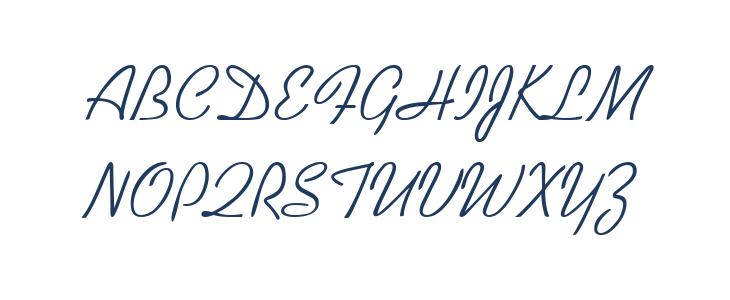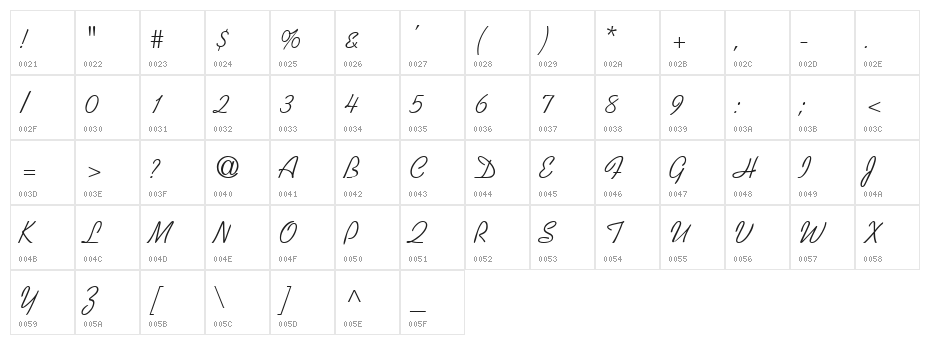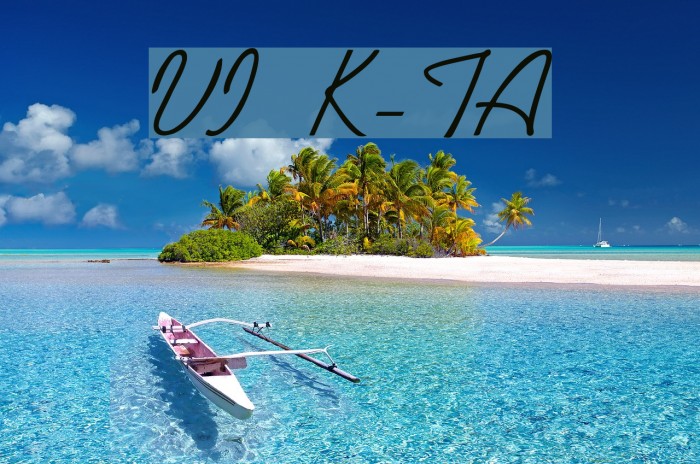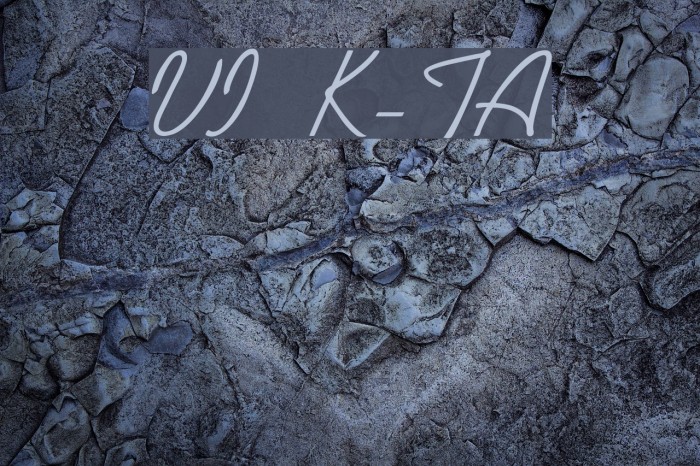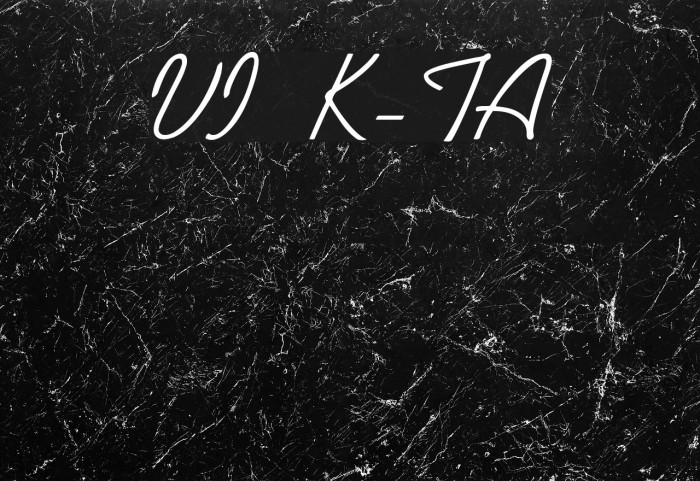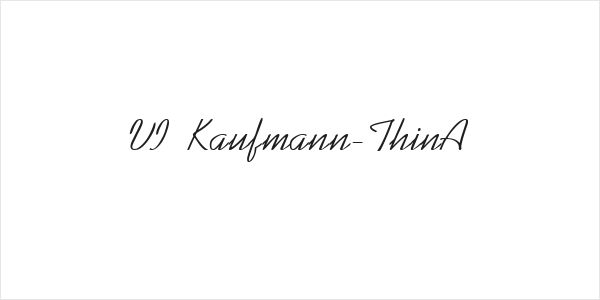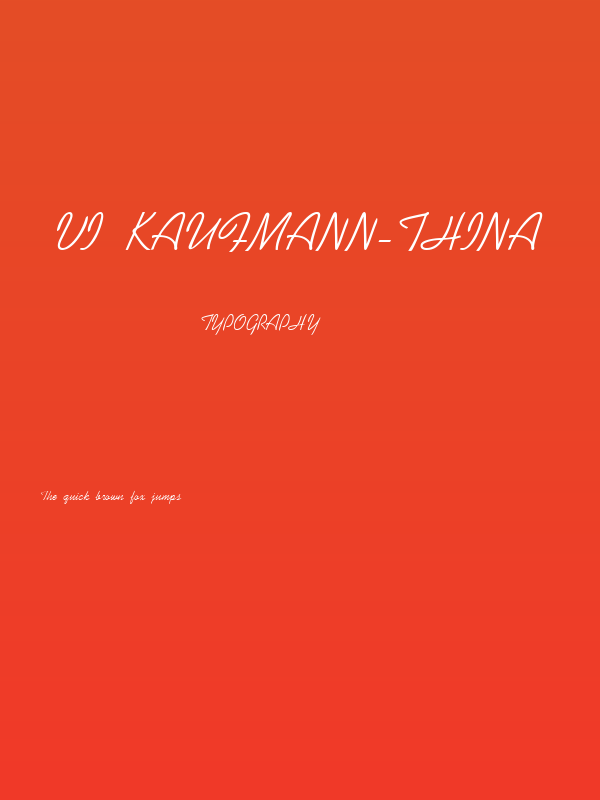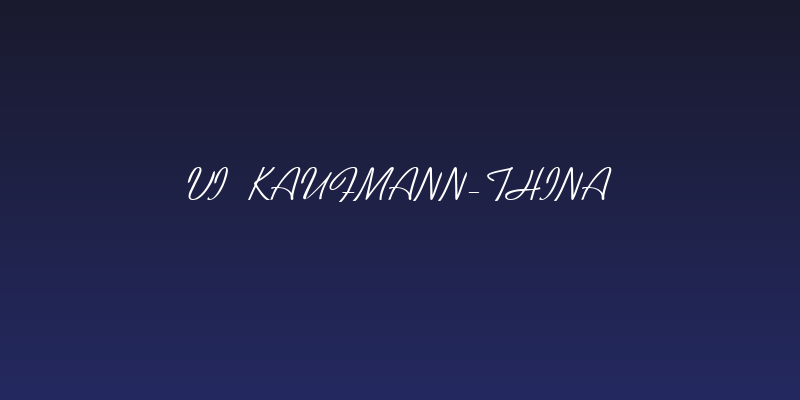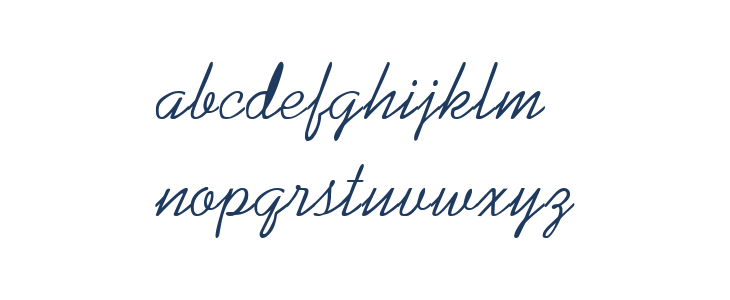
VI Kaufmann-ThinA Font
VI Kaufmann-ThinA Description
This elegant script font features a flowing, cursive style that mimics natural handwriting. The letters are connected, creating a seamless and fluid appearance. The strokes are thin and delicate, giving the font a sophisticated and refined look. It maintains a consistent slant throughout, enhancing its graceful and stylish character. The uppercase letters are slightly larger and more ornate, while the lowercase letters are simpler and more understated. This font includes a full set of numerals and a variety of punctuation marks, all designed to complement the overall aesthetic.